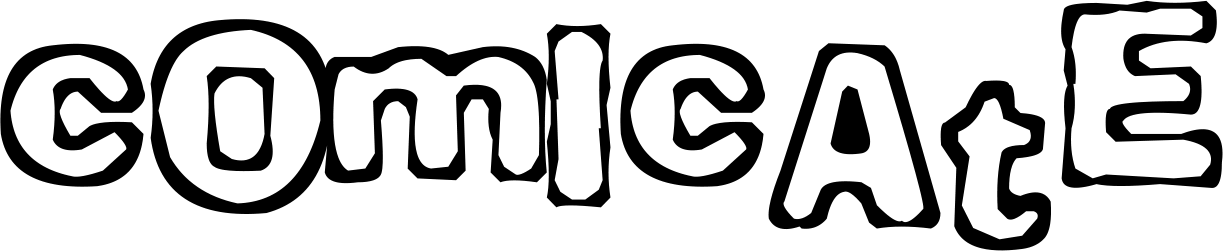
Comicate Font
Nothing could stop the charm of this eroded distorted font, also its fancy letterforms that represent comic vibes, all in all, make it more amazing than other fonts.
The Comicate font comes in handy in designing many greeting cards, posters, branding, movies, logos, and book covers through its cute funny style. Despite lacking uppercase letters, be sure that it can positively affect readers with its comfy touch.